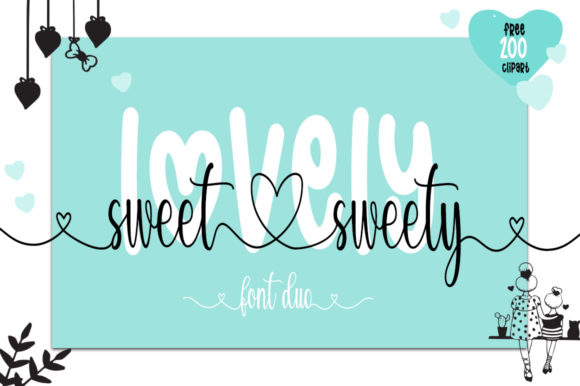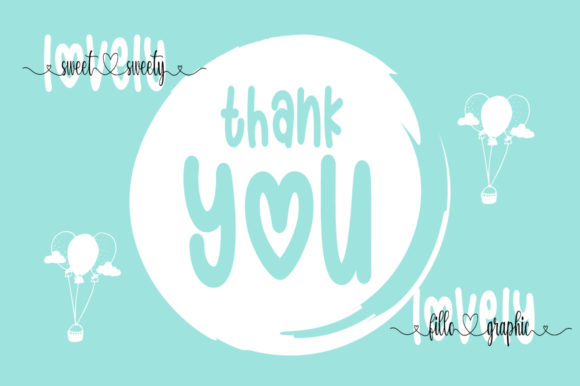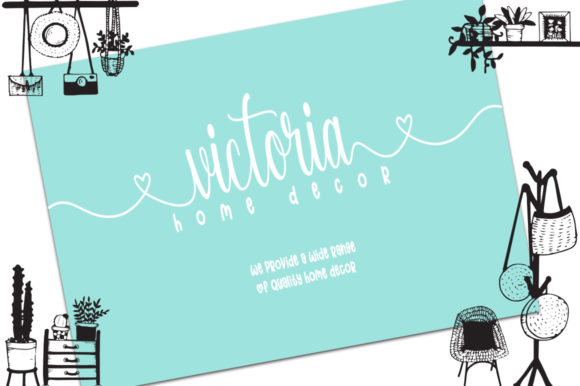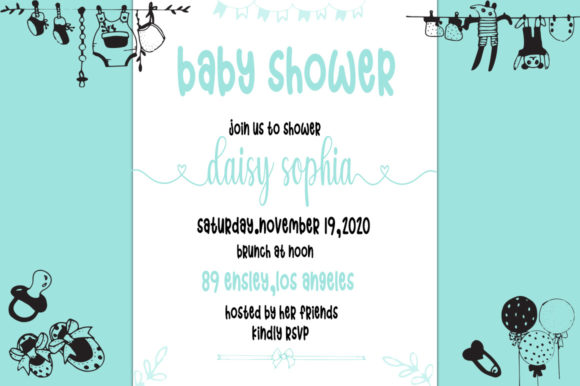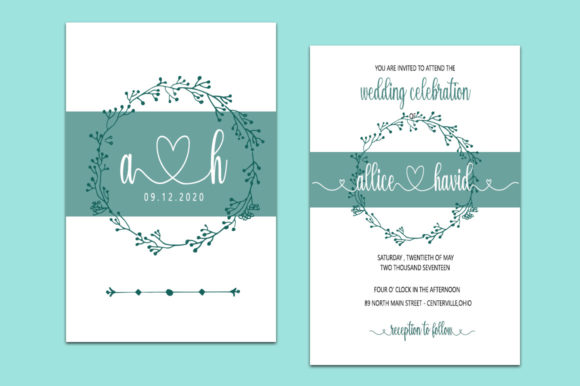
About Lovely Sweet Sweety Font
Lovely Sweet Sweety is a spectacular duo font, defined by characters that dance along the baseline. Incredibly versatile, this font fits a wide pool of designs, elevating them to the highest levels. Add it to your favorite creative ideas and notice how it makes them come alive!